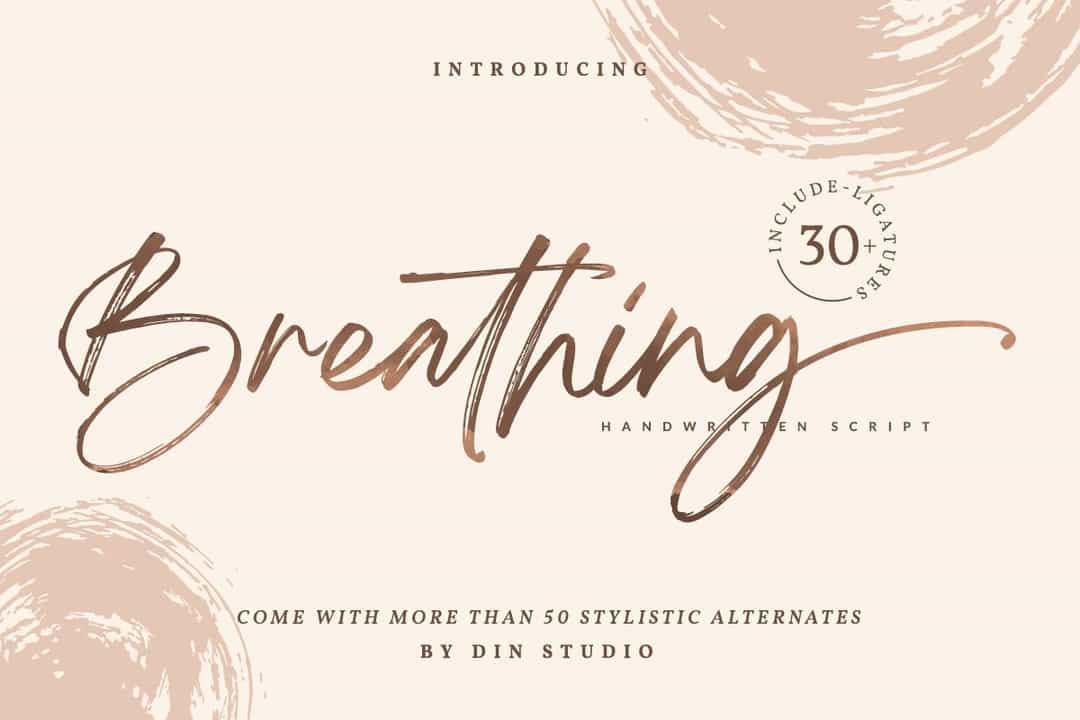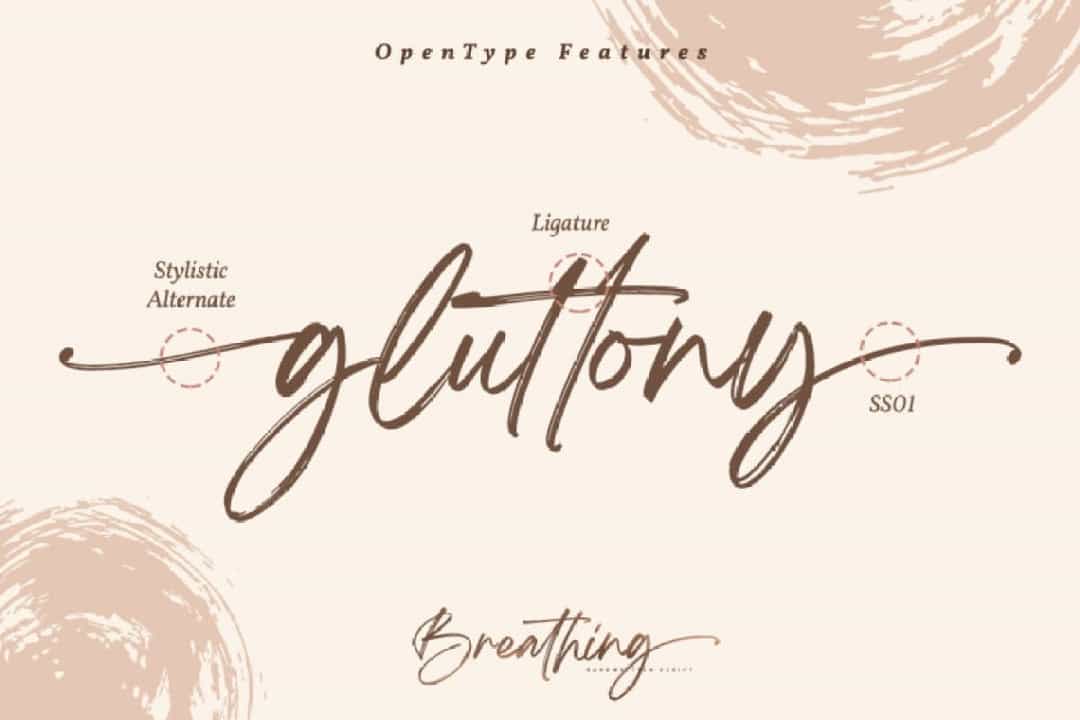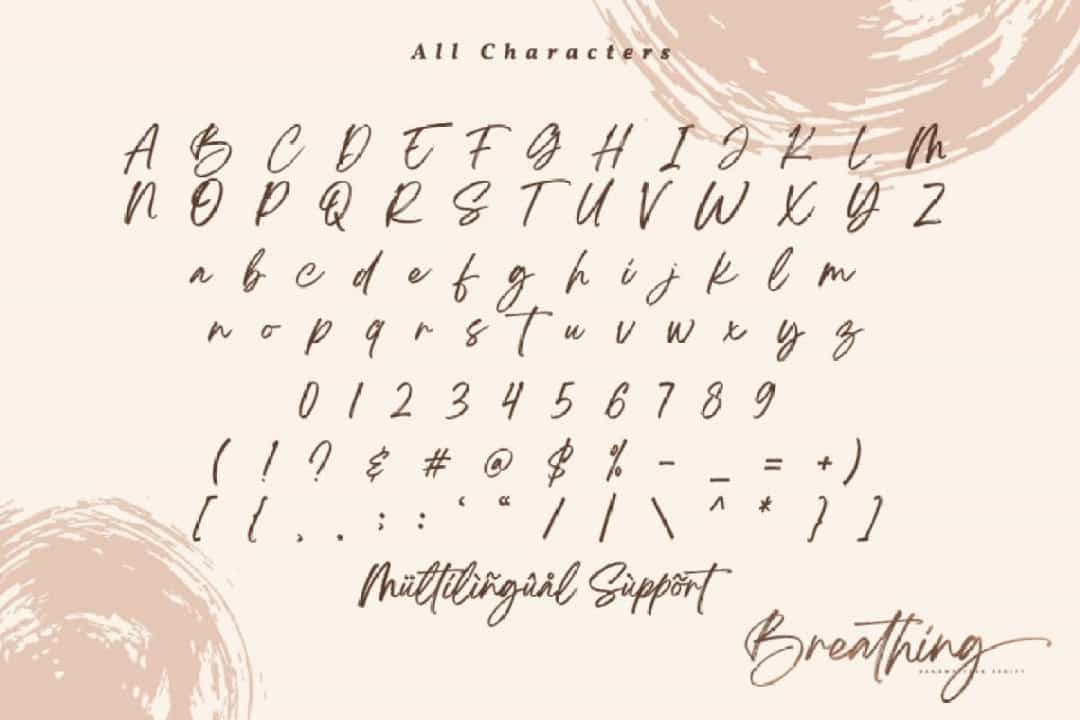
Discover Breathing Font, part of the Brush Script collection—a versatile and unique font perfect for adding a personal touch to your projects. Download it for free and enjoy crafting designs with style, from invitations to social media posts. This font is available exclusively for personal use, giving you the freedom to create without limits. Unlock your creativity with Breathing Font today!
Breathing is a professional typeface trademark brush font that our designers have created for use in branding. Every font of Breathing is different and looks unique in its own way. Let us create it for you based on the branding guidelines that you prefer!